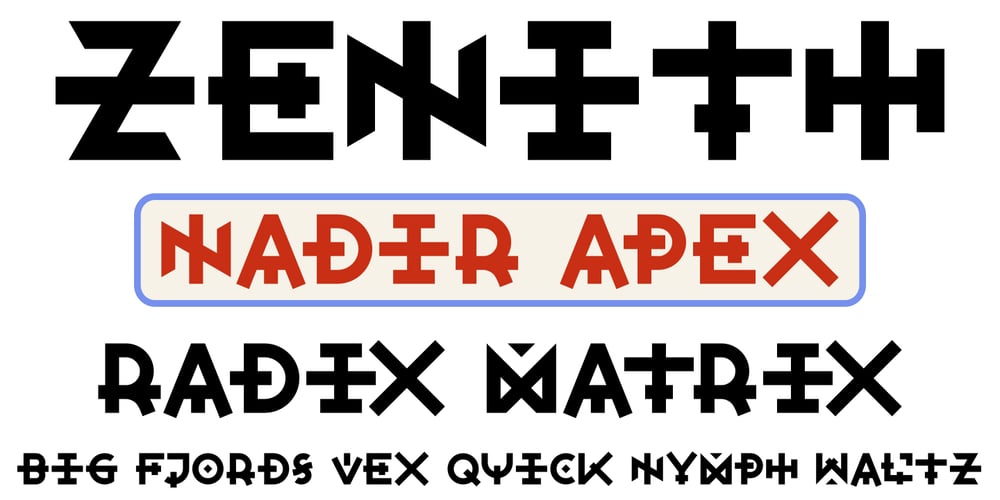
Zenith
Zenith font
Zenith Font Family was designed by Matt Chisholm and published by Glyphobet. Zenith contains 1 styles and family package options. Chinese characters have simplifed and more complex, “traditional” variants. Zenith imagines what an un-simplified, traditional version of the Latin alphabet might have looked like.